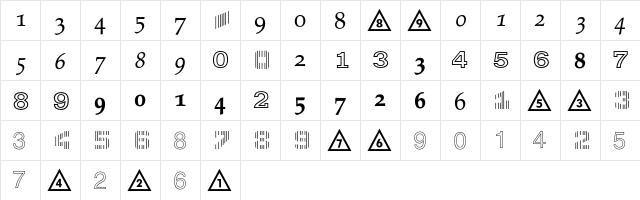
Numerics P10 Font Preview
Numerics P10
Design Context for Numerics Typeface
Numerics offers clean, dependable letterforms without strong stylistic allegiance, making it a practical choice for designers who need flexibility.